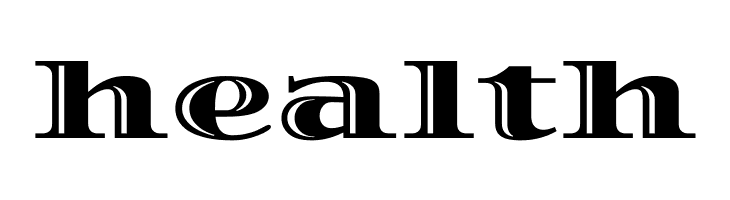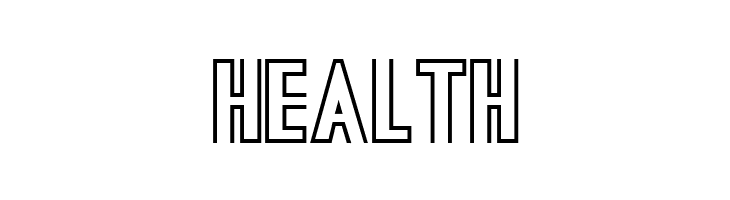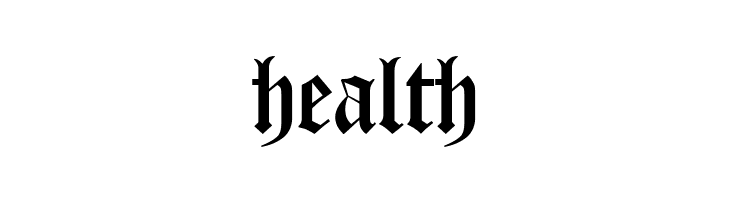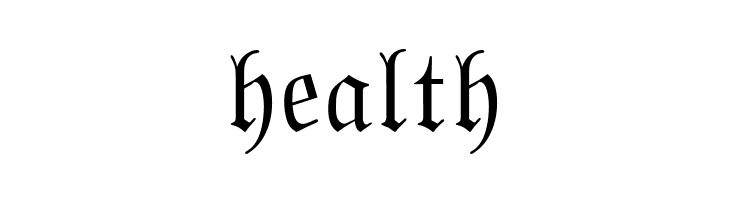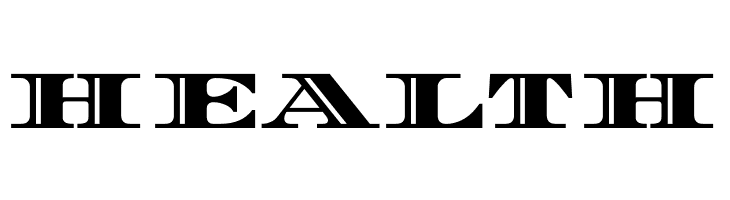
Diploma Regular Font
A classic Blackletter font with ornate, intricate letterforms and dramatic flourishes.
Diplomata Font
A classic serif font with elegant curves and sharp serifs, perfect for formal and modern uses.
Koch-Fraktur OT normal Font
Font by Gerhard Helzel www.fraktur.biz
A traditional Blackletter font with intricate detailing and a medieval flair.
DS Diploma Bold Font
A bold, geometric font with sharp angles and a modern aesthetic.
Diplomata SC Font
A bold and elegant font with a classic and sophisticated style.
MarsFraktur Normal Font
Font by Gerhard Helzel www.fraktur.biz
A traditional blackletter font with ornate and angular letterforms.
AntiquaEnglisch10 Normal Font
Font by Gerhard Helzel www.fraktur.biz
A classic serif font with high contrast and elegant serifs.
KochFraktur Font
Font by Gerhard Helzel www.fraktur.biz
A traditional Blackletter font with ornate, angular letterforms and high contrast strokes.
AntiquaEnglisch10 OT Normal Font
Font by Gerhard Helzel www.fraktur.biz
A classic serif font with elegant strokes and a refined, traditional appearance.
OffenbacherSchwab OT Normal Font
Font by Gerhard Helzel www.fraktur.biz
A classic Blackletter font with ornate, angular letterforms and a medieval aesthetic.
MarsFraktur OT Normal Font
Font by Gerhard Helzel www.fraktur.biz
A classic Blackletter font with intricate, angular strokes and decorative flourishes.
MarsFrakturBohem Normal Font
Font by Gerhard Helzel www.fraktur.biz
A traditional blackletter font with intricate detailing and gothic elegance.
DS Diploma-DBL Bold Font
A bold, geometric, outlined font with a modern and dynamic style.
DS Diploma Art Bold Font
A bold, jagged font with sharp, thorn-like elements for a dynamic look.
MarsFrakturLett Normal Font
Font by Gerhard Helzel www.fraktur.biz
A decorative Blackletter font with ornate, gothic styling.
MarsFrakturSlovak Normal Font
Font by Gerhard Helzel www.fraktur.biz
A traditional blackletter font with ornate, gothic letterforms and decorative flourishes.
MarsFrakturDansk Normal Font
Font by Gerhard Helzel www.fraktur.biz
A dramatic Blackletter font with intricate curves and sharp angles, exuding classic sophistication.
DS DiplomaDBL Bold Font
A bold, geometric font with clean lines and sharp angles, ideal for modern designs.